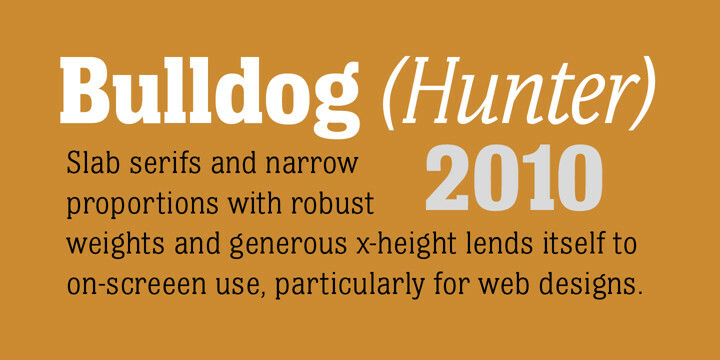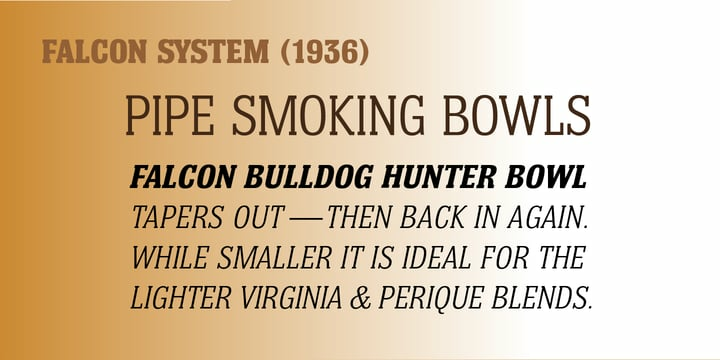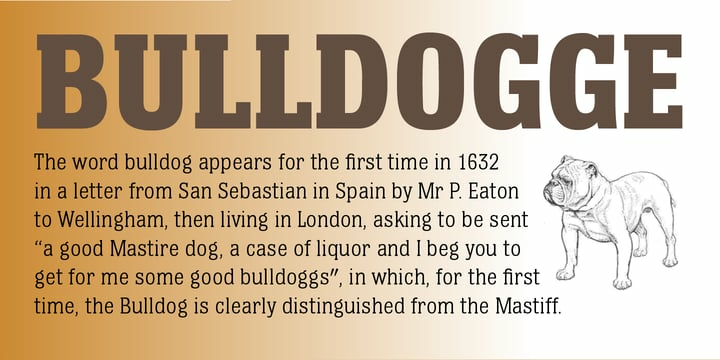
Bulldog Hunter Std Font Family
Bulldog Hunter Std Font FamilySlab Serif version of the Bulldog family. Hunter family lends itself to on-screen use for web design – the letterforms being legible and robust at small sizes.